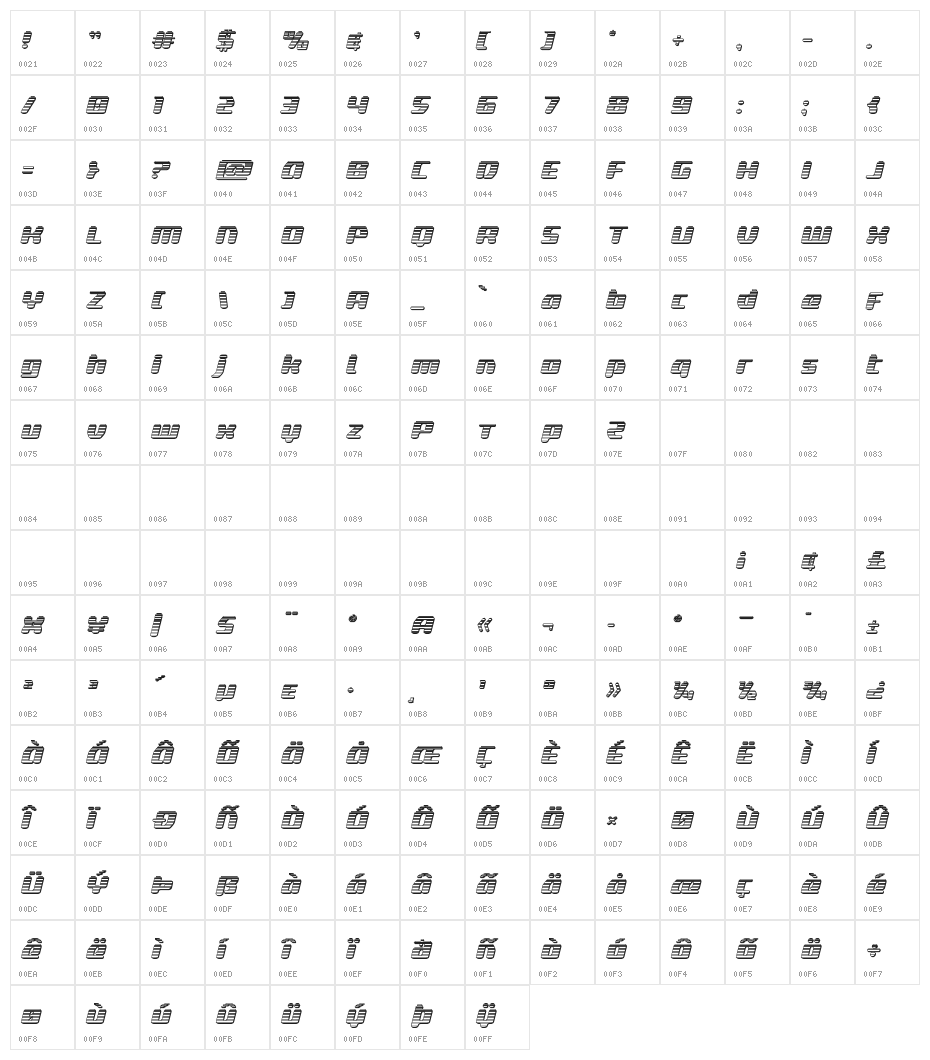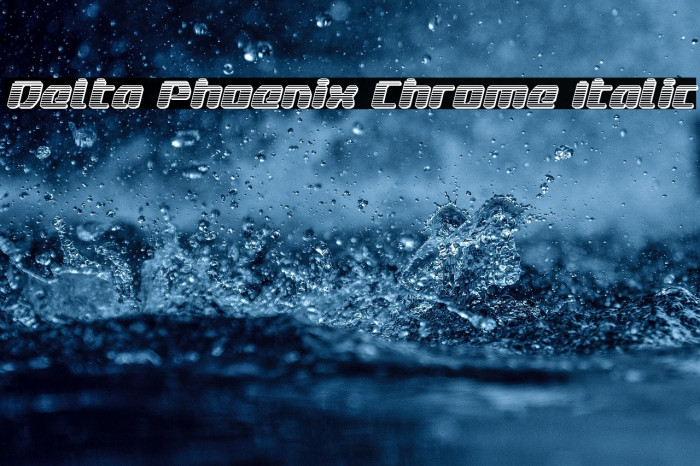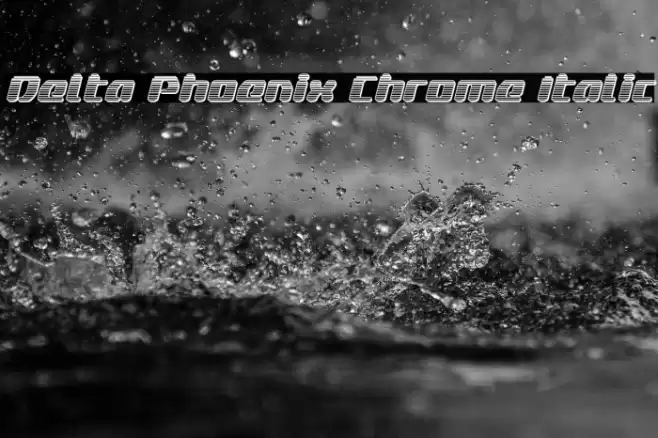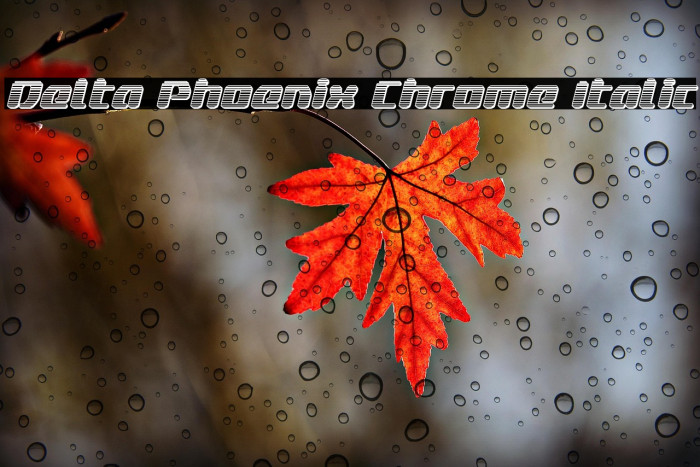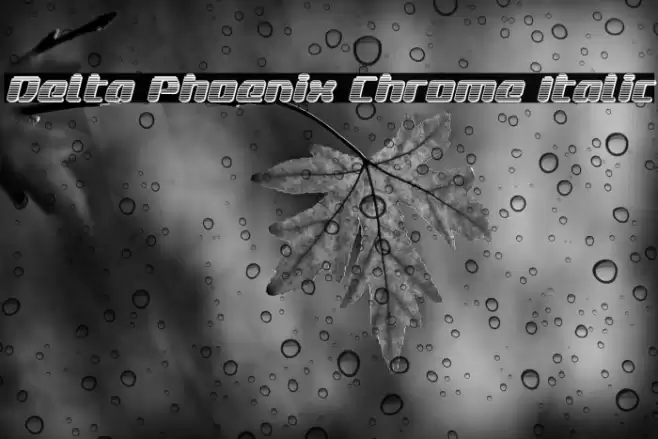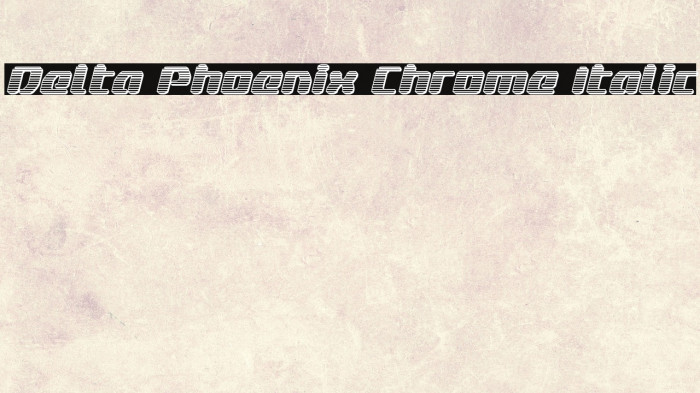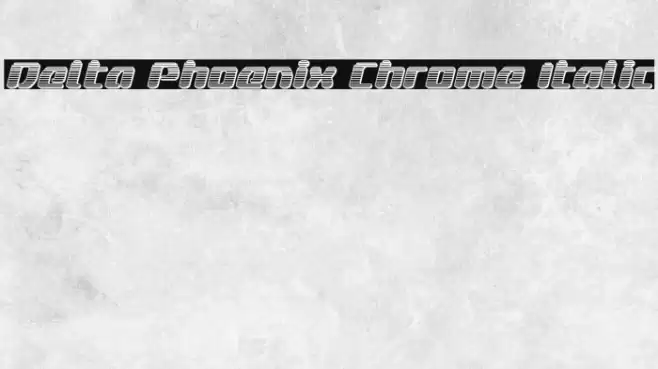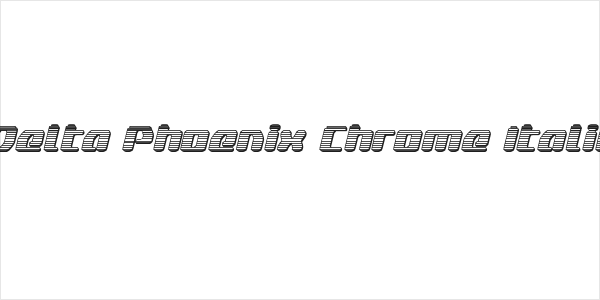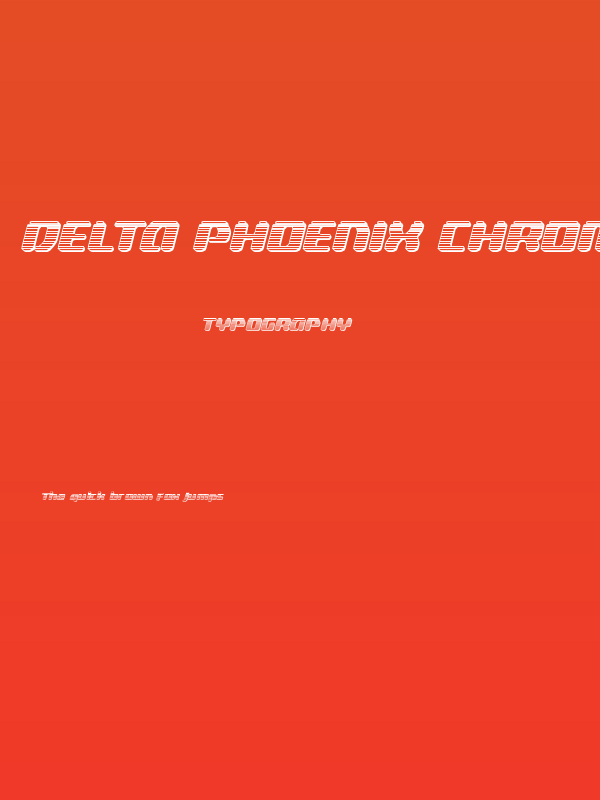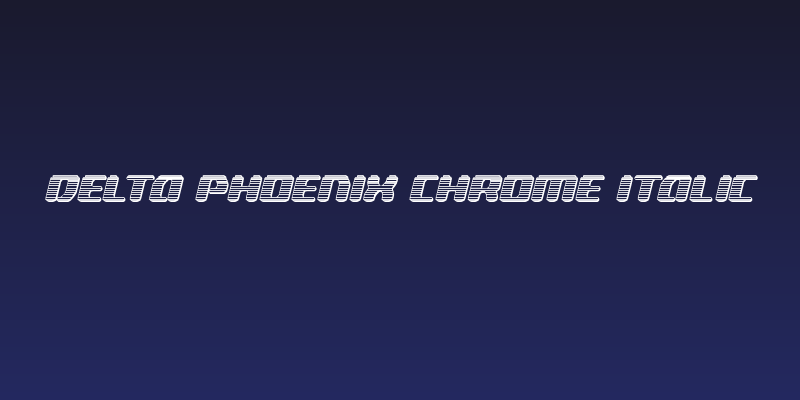
Delta Phoenix Chrome Italic Font
Delta Phoenix Chrome Italic Description
This font features a futuristic and dynamic design with a distinct chrome-like appearance. Each character is constructed with multiple parallel lines, creating a sense of depth and movement. The italic slant adds to its sleek and modern aesthetic, making it ideal for projects that require a bold and eye-catching typeface. The uppercase and lowercase letters maintain a consistent style, while the numerals and special characters complement the overall design. The font's unique structure makes it suitable for creative and innovative applications.